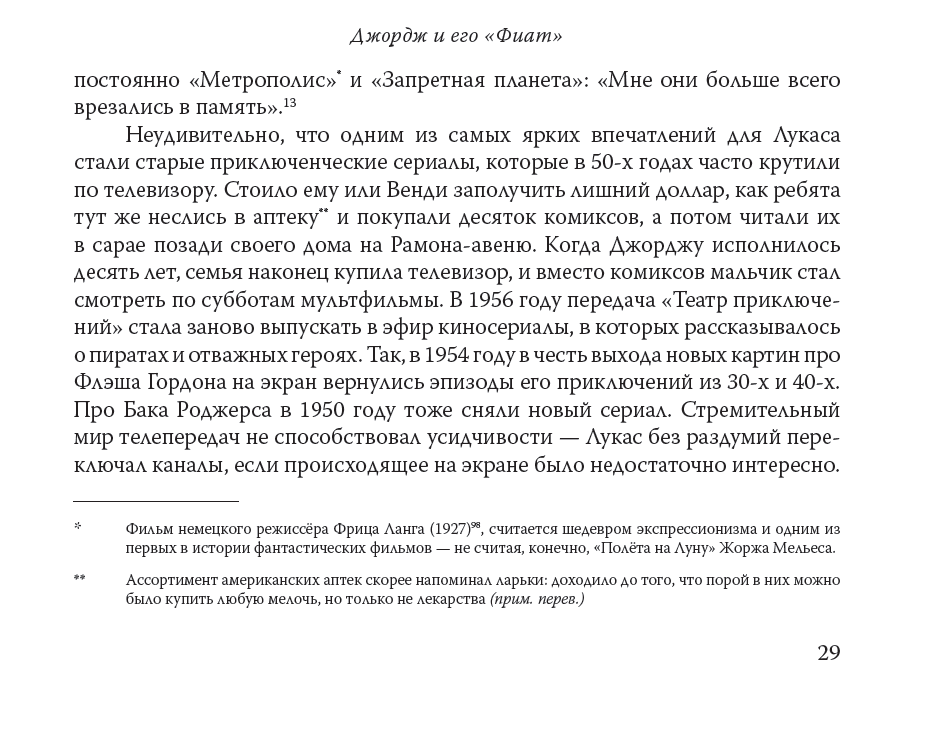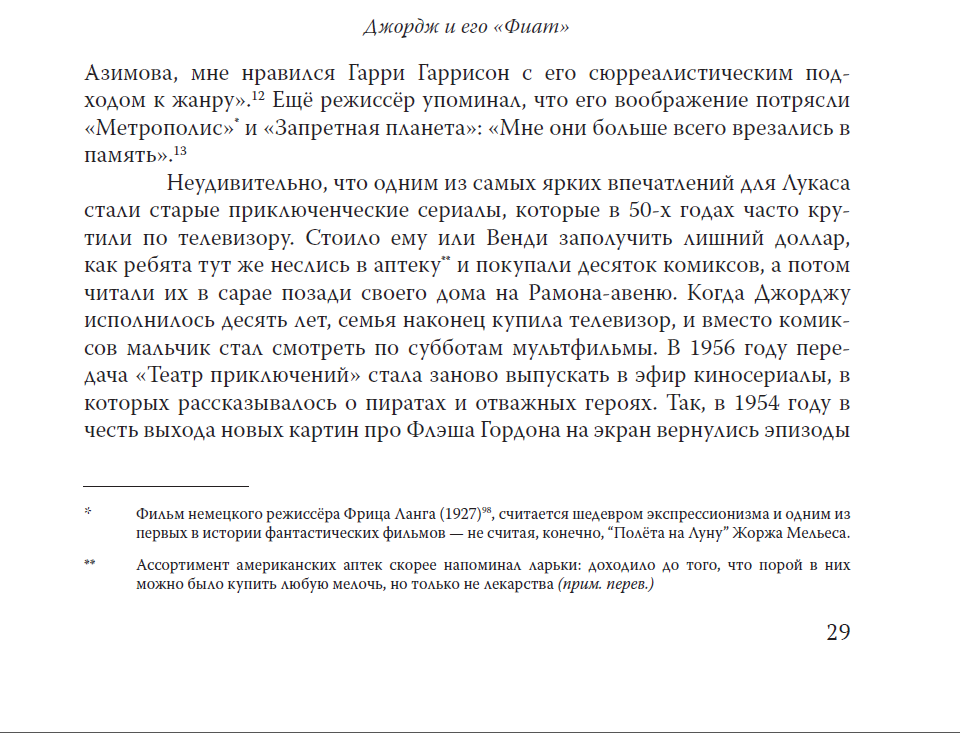
Light or Regular?
I'm trying to learn about typefaces - I'm currently designing a book for print, and I hope it won't be my last shot at typography. There's one piece of information I can't seem to find in google: what's the practical difference between Light and Regular font weights? I'm trying to understand whether or not it's all right to use Light in print, and how it works with different font sizes (is it "light for 6-8 pt, regular for 9-14" or "regular for 9-14, light for 15+"?) Can you help me figure this out?
Attached samples: Warnock Pro (Regular and Light), 10pt, Cyrillic (Russian).
… what's the practical difference between Light and Regular font weights?
​Don’t read too much into those style names. There are a rather artificial scale to name different stroke widths. But there is no agreement on what boldness a certain style name should have or how that style would then be used. Those names can even be conflicting, e.g. for one typeface “regular” is bolder than “book” and for another it’s the other way around.
So long story short: You need to pick the right style depending on your specific project. For a book for example, the paper type and printing technology affect strongly how the type actually appears and how legible it is. Also the point size makes a big difference. A light style might work great for headlines (because it appears more elegant), but might get too light the smaller you set it.
It's partucularly intruguing as another example of how we carry over hundreds of years old technological specifications into our modern-day design conventions.